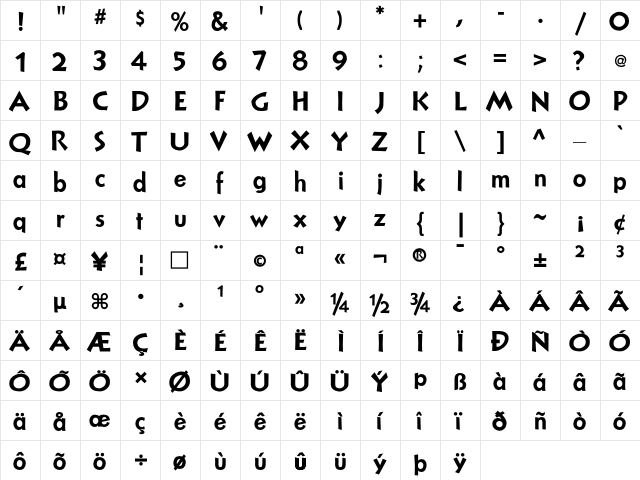
NuevoLithoPro Regular
| Foundry | David Bergsland, Bergsland Design |
| Designer | David Bergsland |
Design Context for NuevoLithoPro Typeface
NuevoLithoPro takes a measured approach to typography — its balanced proportions and neutral character make it a reliable workhorse for both digital and print work.